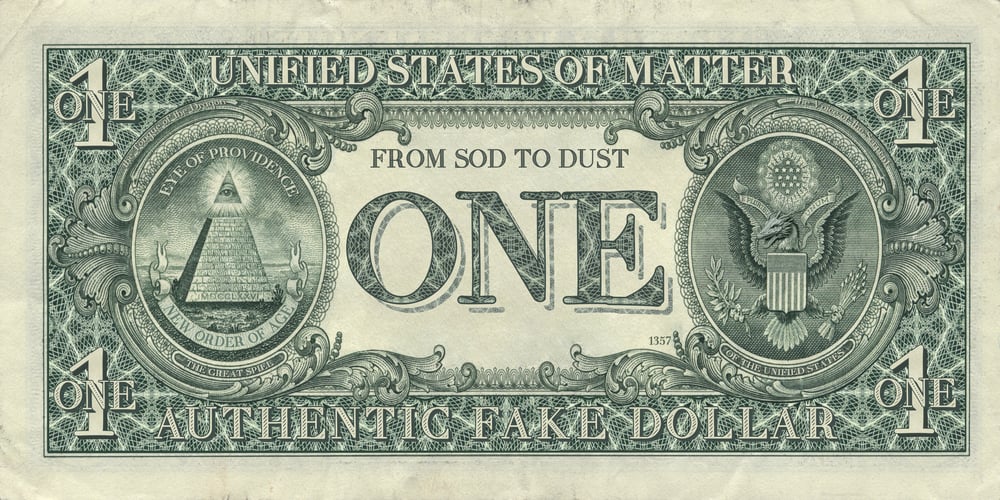
DT Hand Draft
DT Hand Draft font
DT Hand Draft Font Family was designed by Scott Spensley and published by Dragon Tongue Foundry. DT Hand Draft contains 3 styles and family package options. Hand Draft is hand crafted to emulate both the early printer’s serif font and/or a hand-drawn version of an early Serif font, using either a felt or round nibbed pen.Carefully designed to recreate a sturdy Sans Serif font with just the right amount of artistic imperfection, in three styles: outlined, hatched, and solid. A little funky and slightly grungy, this hand-drawn font is intentionally not quite perfectly rendered.